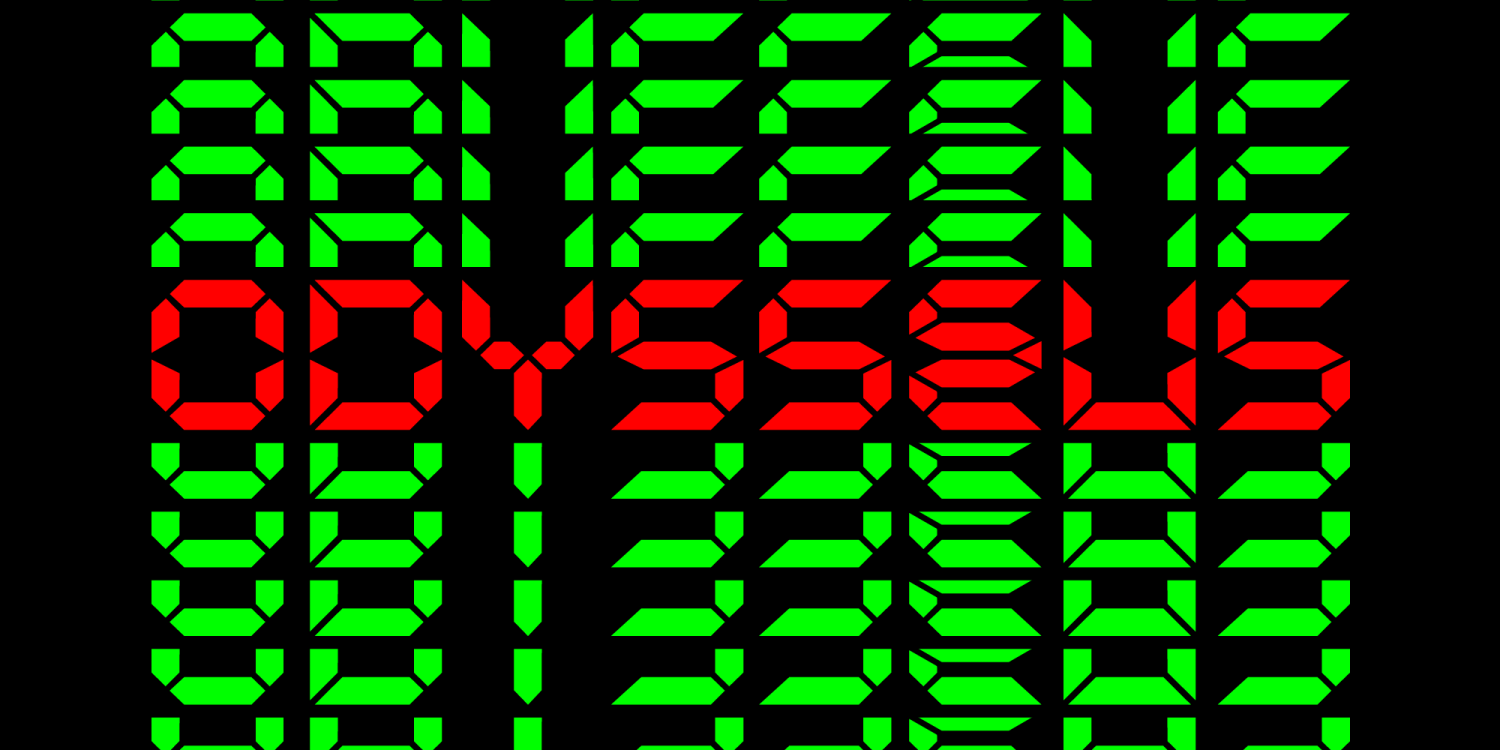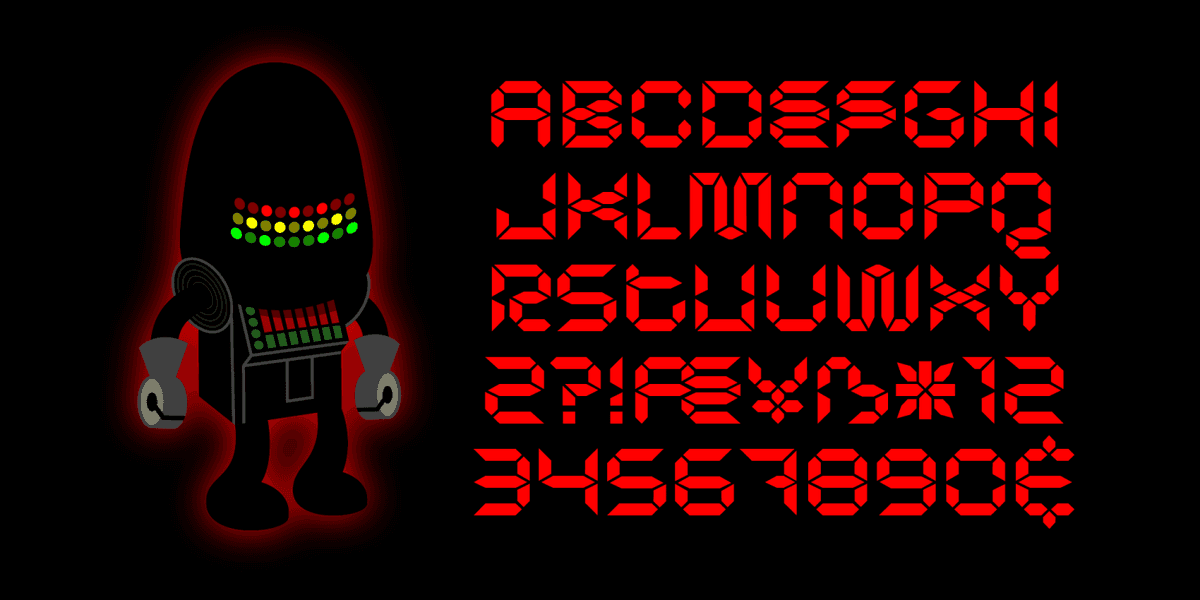
He's the "bun" to his "burger", the "bubble" to his "yum", the "boom" to his "box". Odysseus 5 is the side man to Runtron 1983. He might look like a little baby equalizer with arms and legs, but rest assured, he gots da skillz. Domo arigato, Mister Odysseus 5!